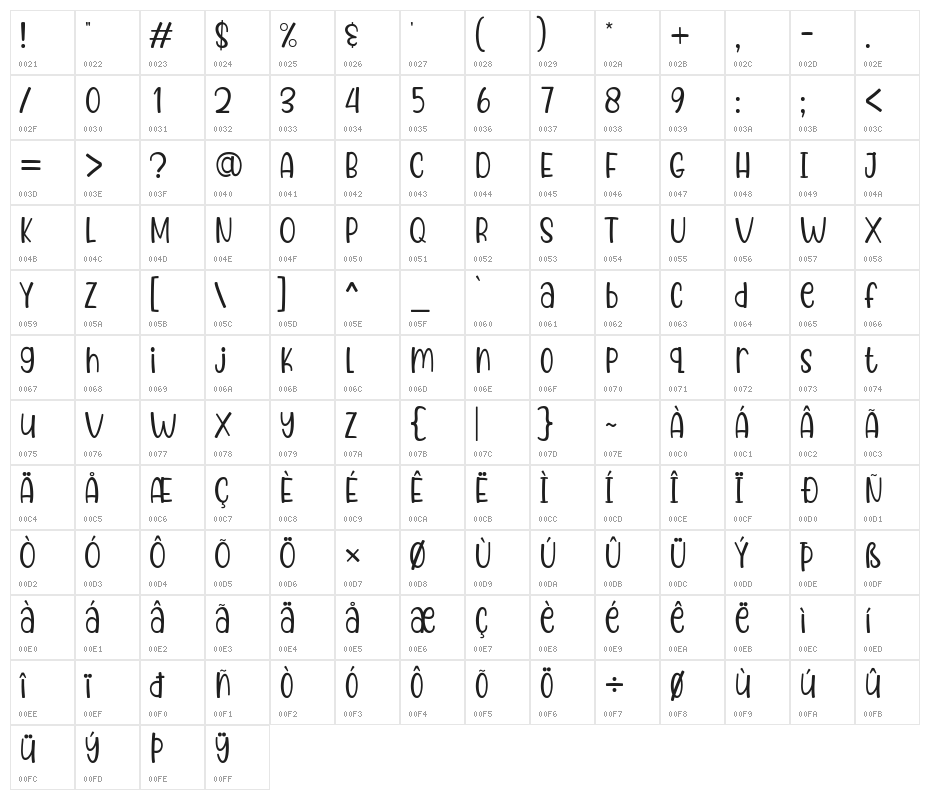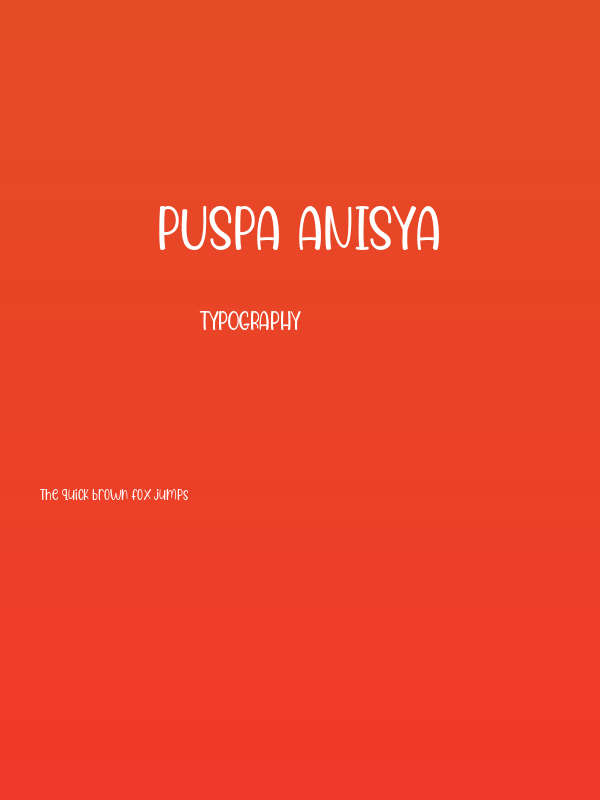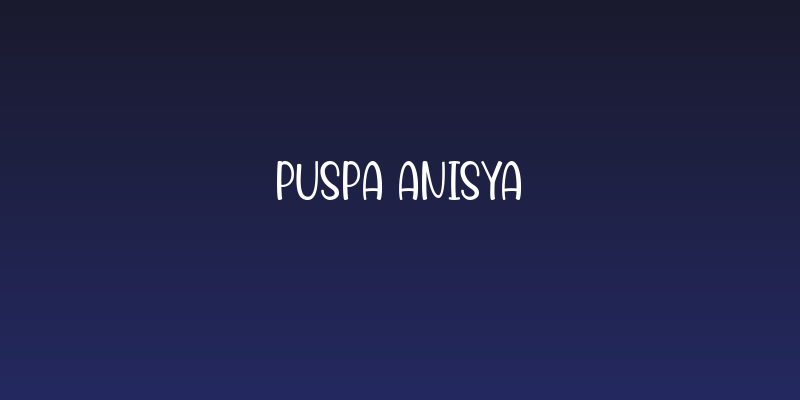
Puspa Anisya Font
Puspa Anisya Description
This font features a playful and whimsical handwritten style, characterized by its rounded and slightly irregular letterforms. The uppercase and lowercase letters maintain a consistent flow, with a casual and friendly appearance. The numbers and special characters are designed to match the overall style, adding to the font's cohesive look. The strokes are moderately thick, providing a bold presence without being overwhelming. This font is ideal for projects that require a personal touch, such as invitations, greeting cards, or playful branding.
| Proposed Projects | Ideal for invitations, greeting cards, playful branding, and children's books. |